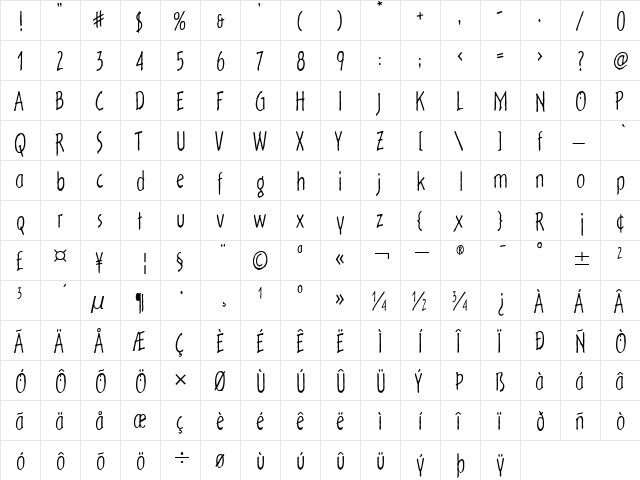
OutoftheFridgeITC TT Regular
Design Context for OutoftheFridgeITC TT Typeface
OutoftheFridgeITC TT is a composed and adaptable typeface that performs quietly and consistently across a wide range of design contexts.